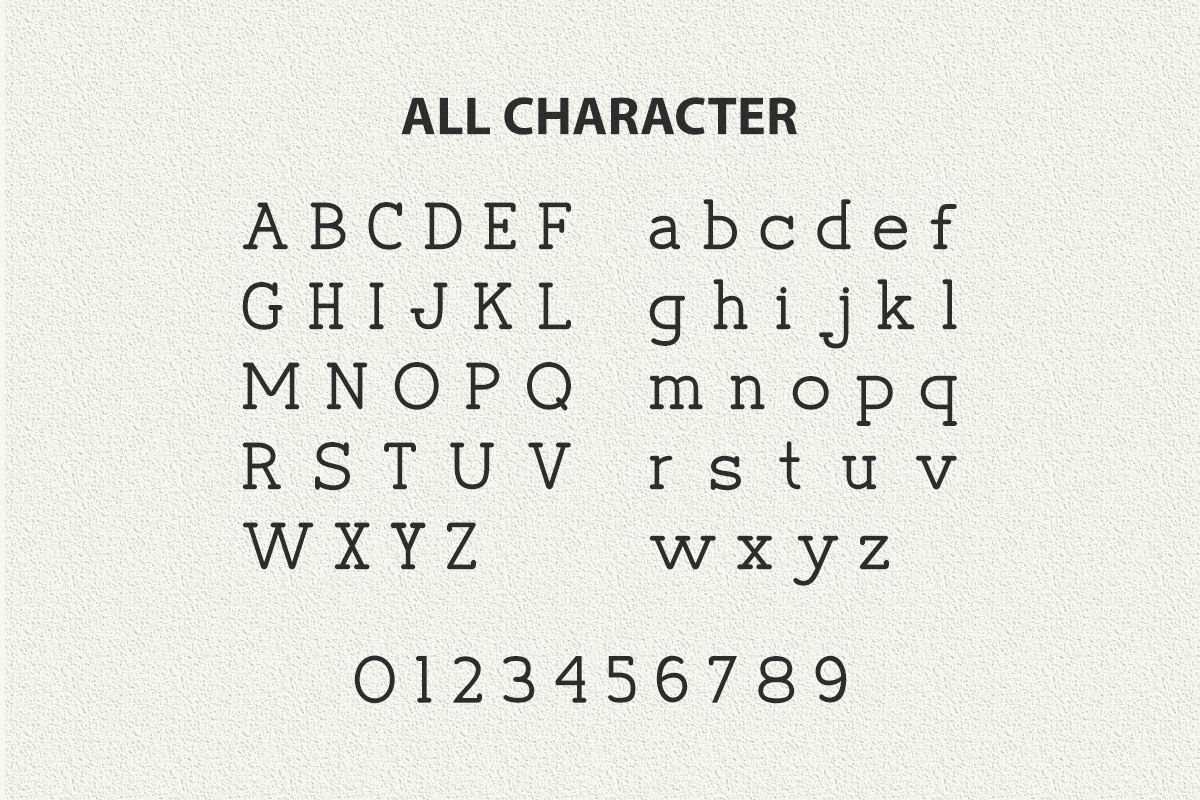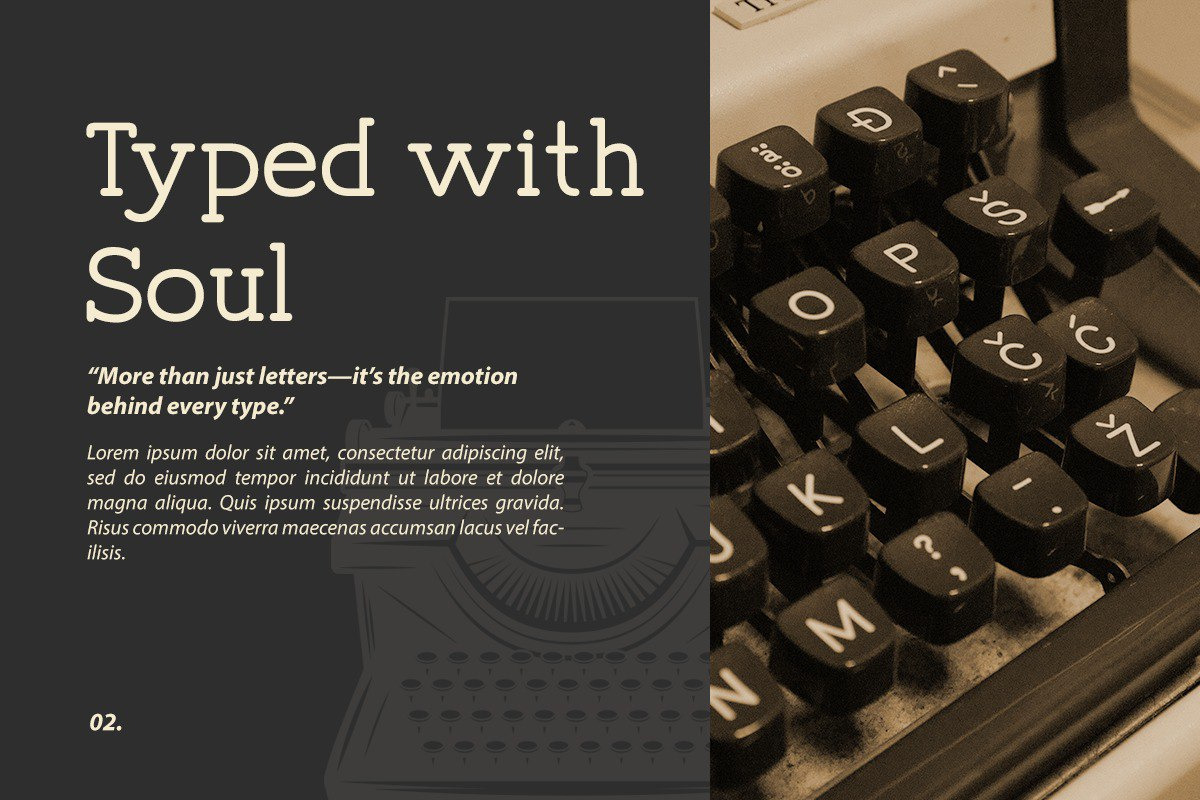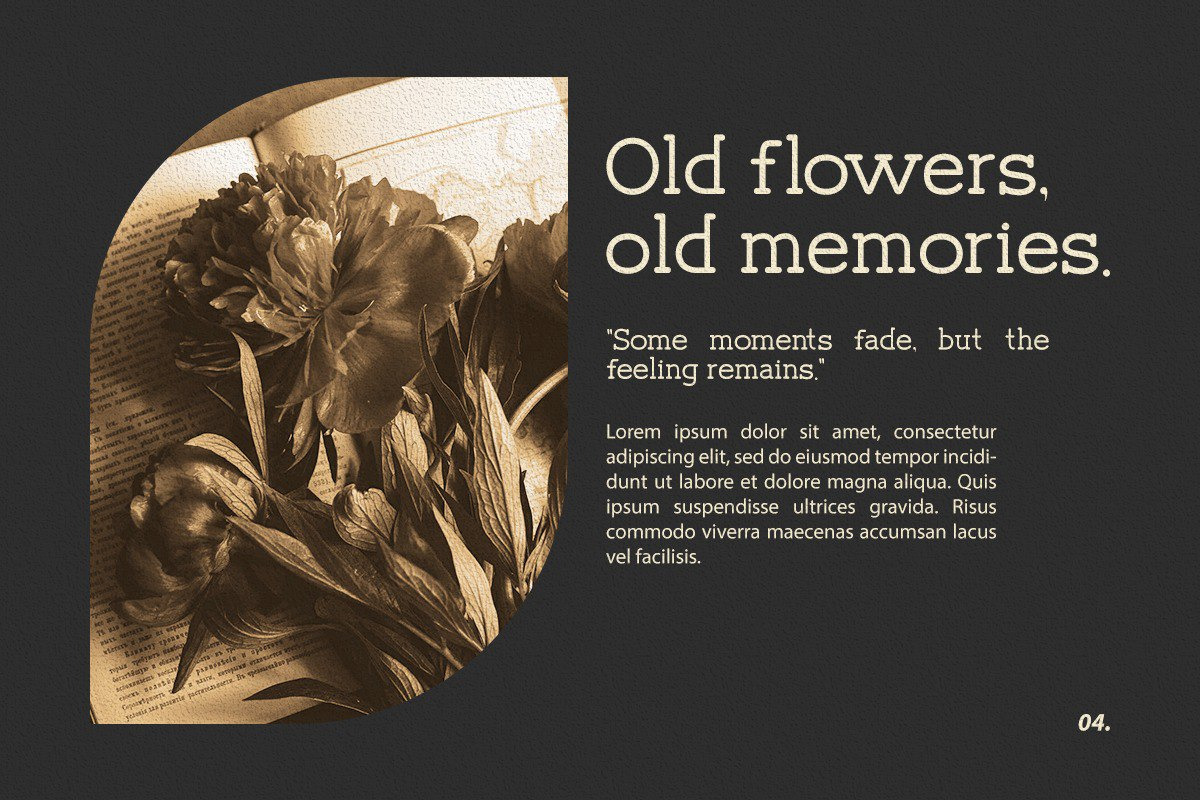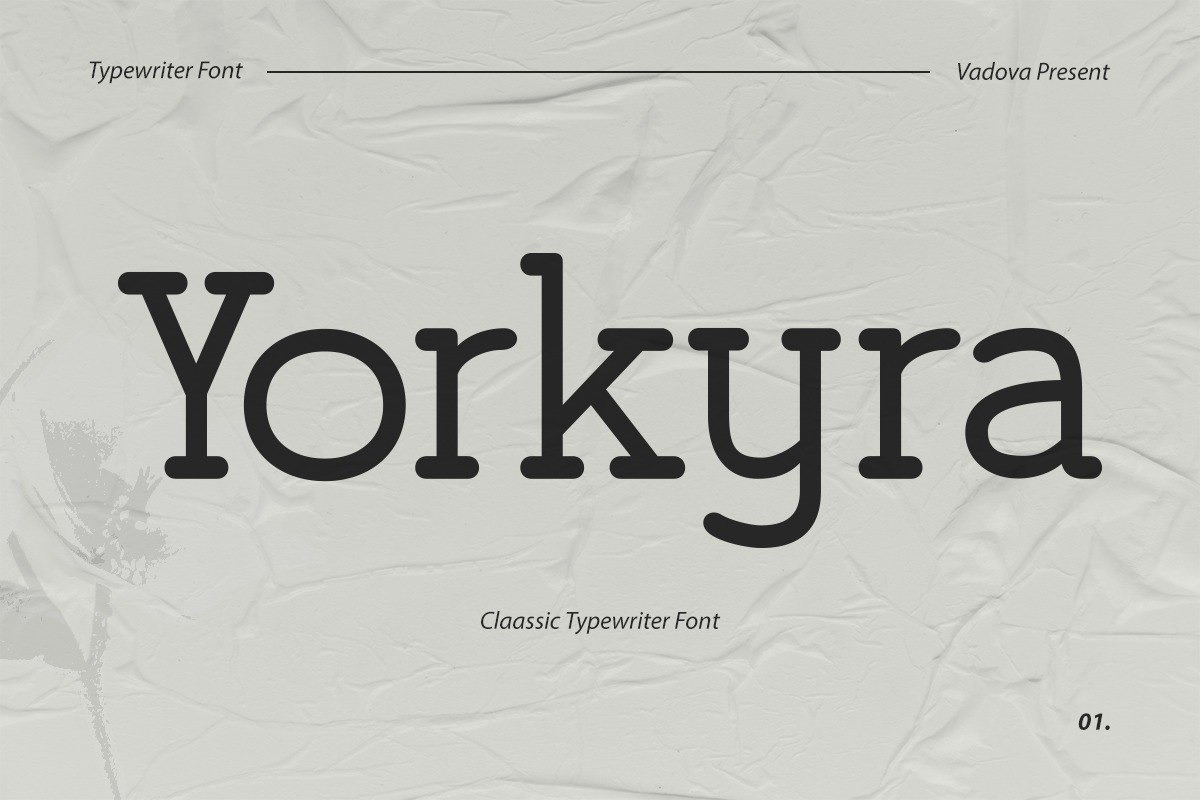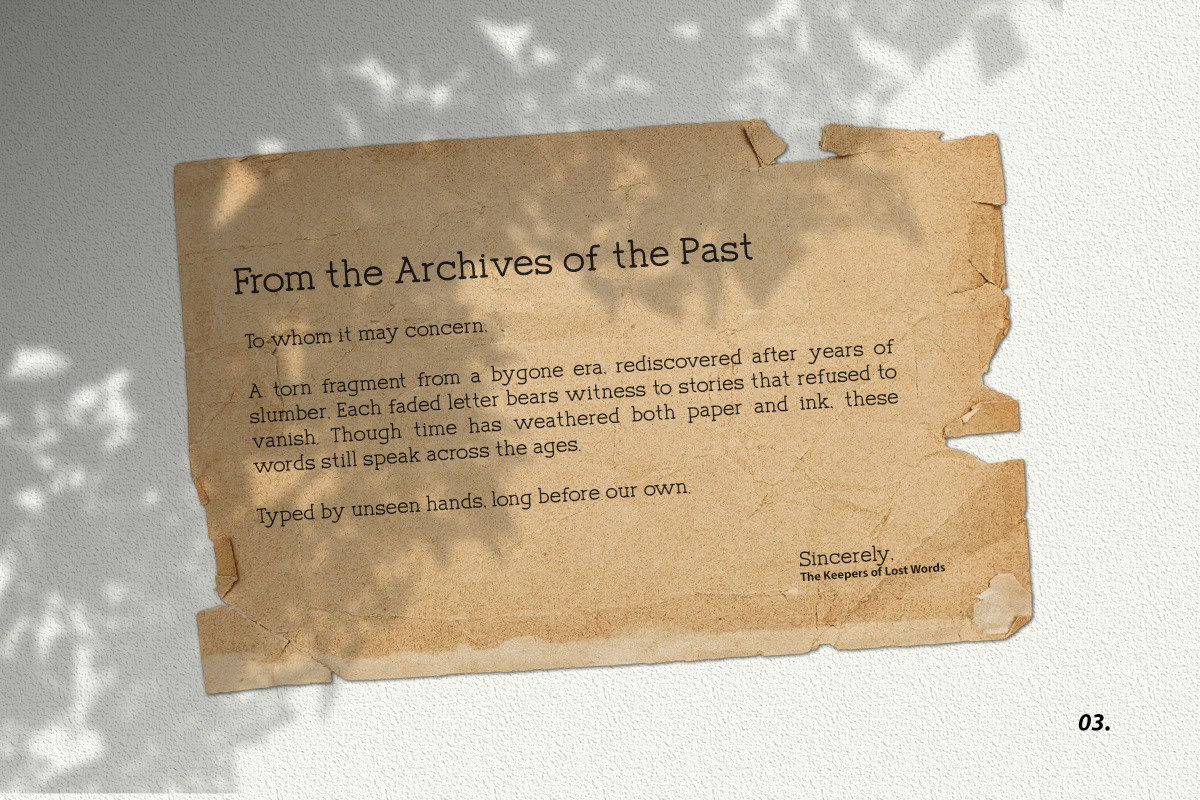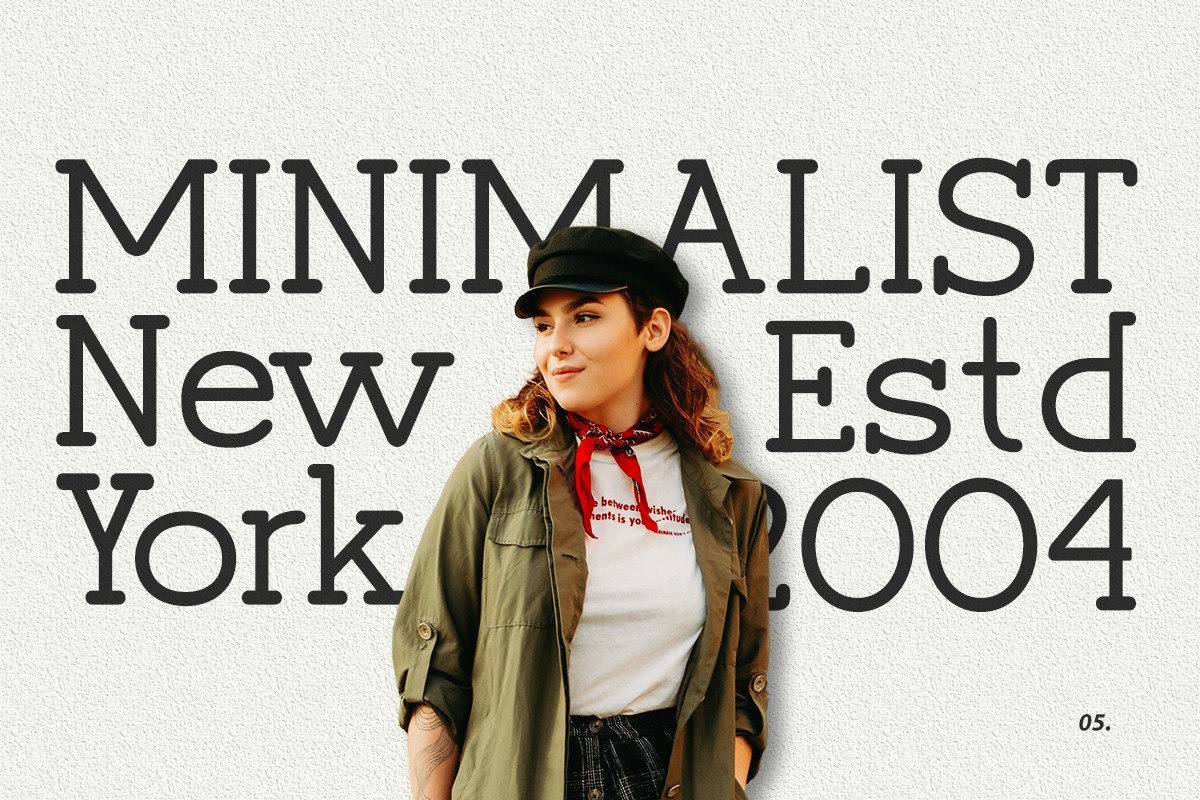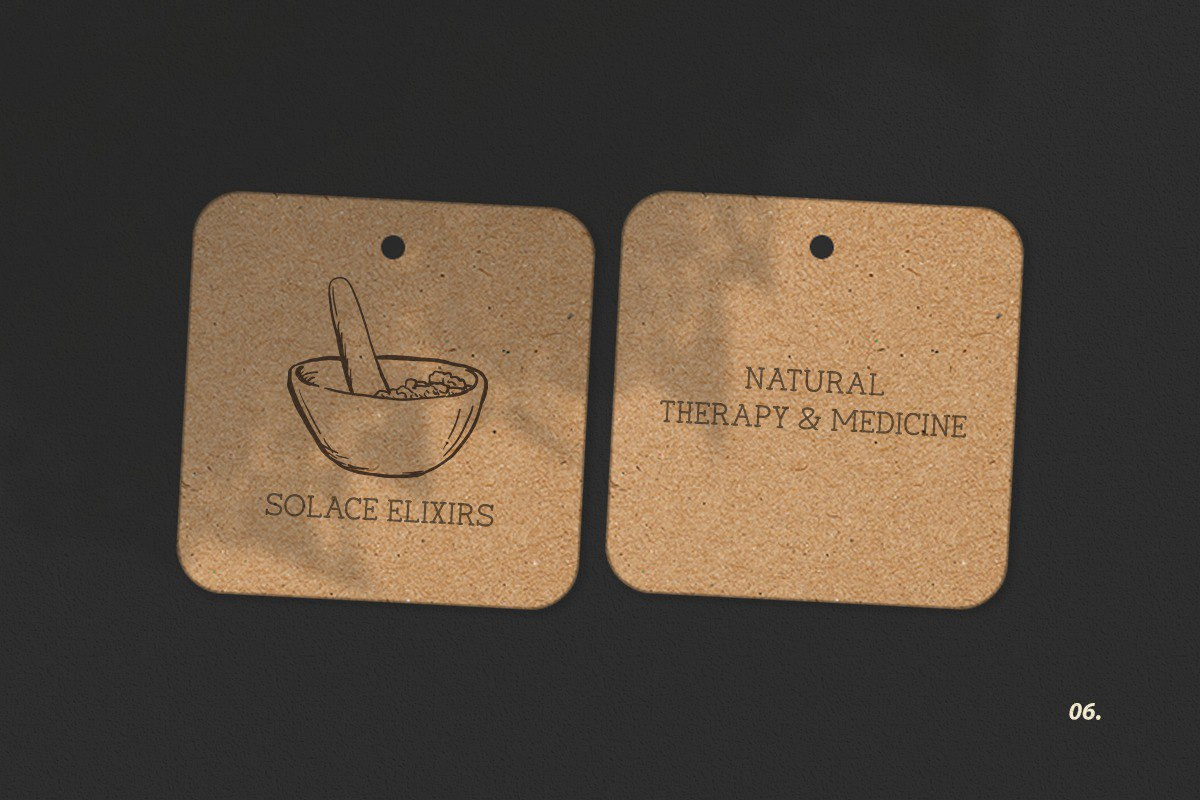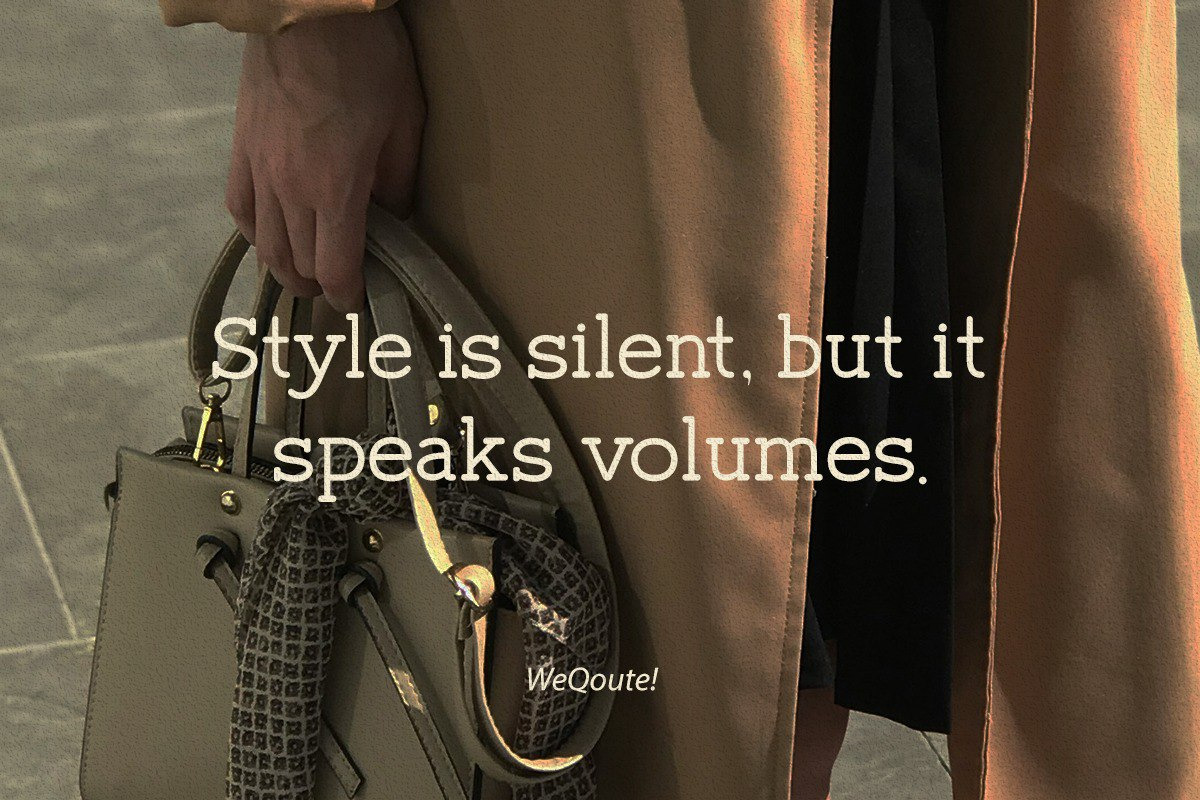
Yorkyra Classic Typewritter Font
Yorkyra is a classic monospaced typewriter font with a timeless aesthetic. Inspired by vintage typewriters, this font features slab-like serifs, uniform character width, and subtle imperfections that enhance its nostalgic charm. Yorkyra includes uppercase and lowercase letters, numerals, and basic punctuation making it versatile for various retro-inspired designs. It's well-suited for quotes, editorial layouts, branding, stationery, and digital projects that seek a literary, analog vibe.
Yorkyra is ideal for projects that aim to evoke a sense of nostalgia, simplicity, or analog warmth. It’s great for branding that leans into editorial, retro, or literary aesthetics from book covers and zines to artisan packaging, café branding, and personal journaling templates. It's well-suited for quotes, editorial layouts, branding, stationery, and digital projects that seek a literary, analog vibe.
- Classic monospaced structure inspired by vintage typewriters
- Rounded slab serifs for a soft, approachable tone
- Uniform stroke weight for consistent visual rhythm
- Carefully balanced proportions for improved legibility
- Subtle curves and mechanical detailing for retro-modern charm
- Vintage-inspired brand identities and boutique logos
- Editorial layouts, zines, and nostalgic print publications
- Fashion lookbooks and minimalist product catalogs
- Labels, tags, and packaging for handcrafted or artisanal goods
- Social media graphics and blog headers with a classic, timeless touch
Let Yorkyra bring classic charm to your modern design